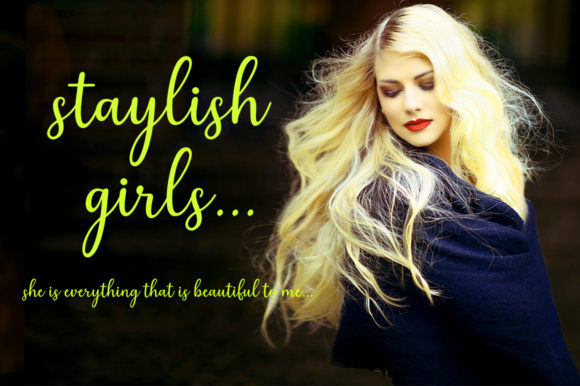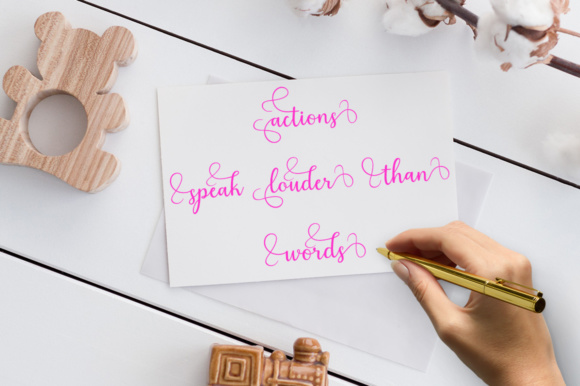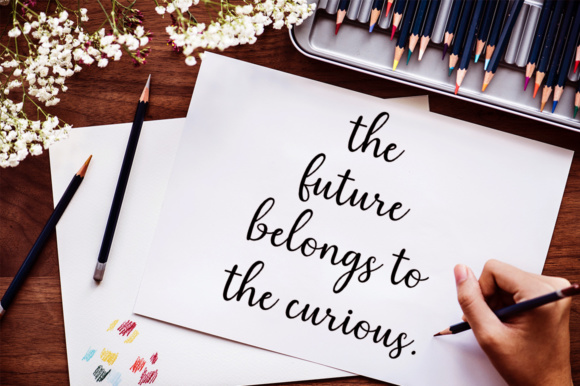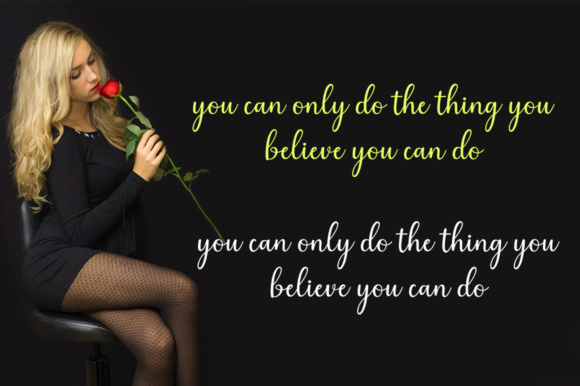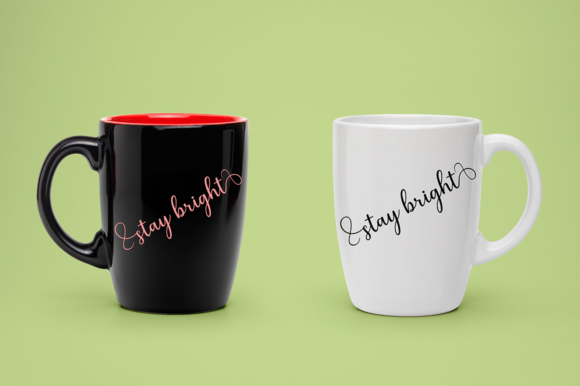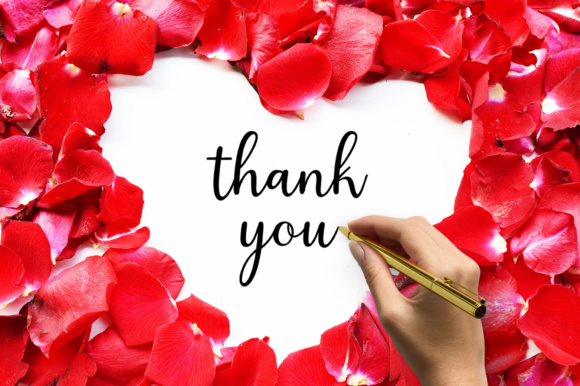
Cealisha Font
About Cealisha Font
The Cealisha is a modern handwritten font. It’s suitable for logos, product packaging, branding, headlines, signage,and more.